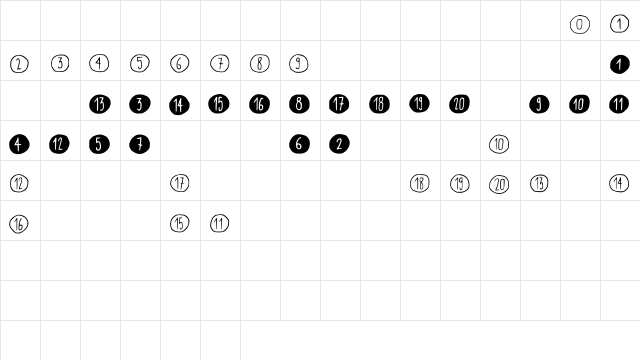
Scribynumbers Medium
Design Context for Scribynumbers Typeface
Scribynumbers is a composed and adaptable typeface that performs quietly and consistently across a wide range of design contexts.